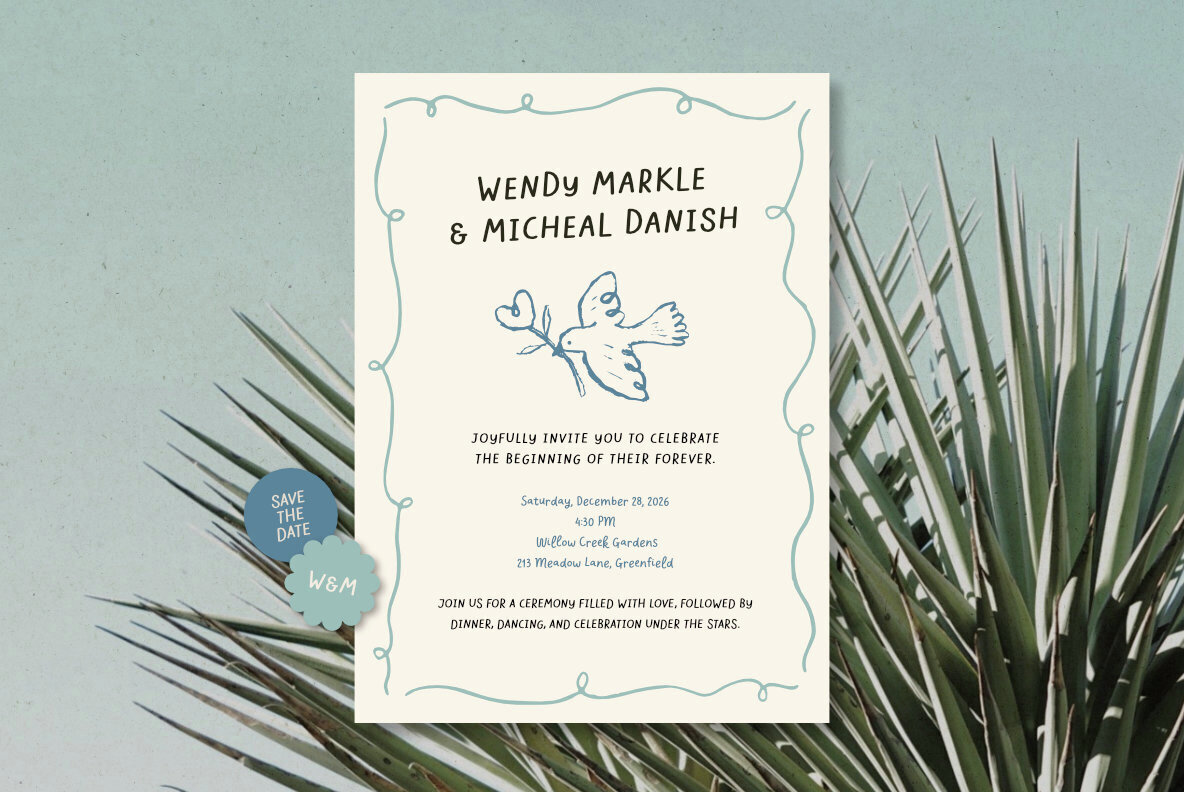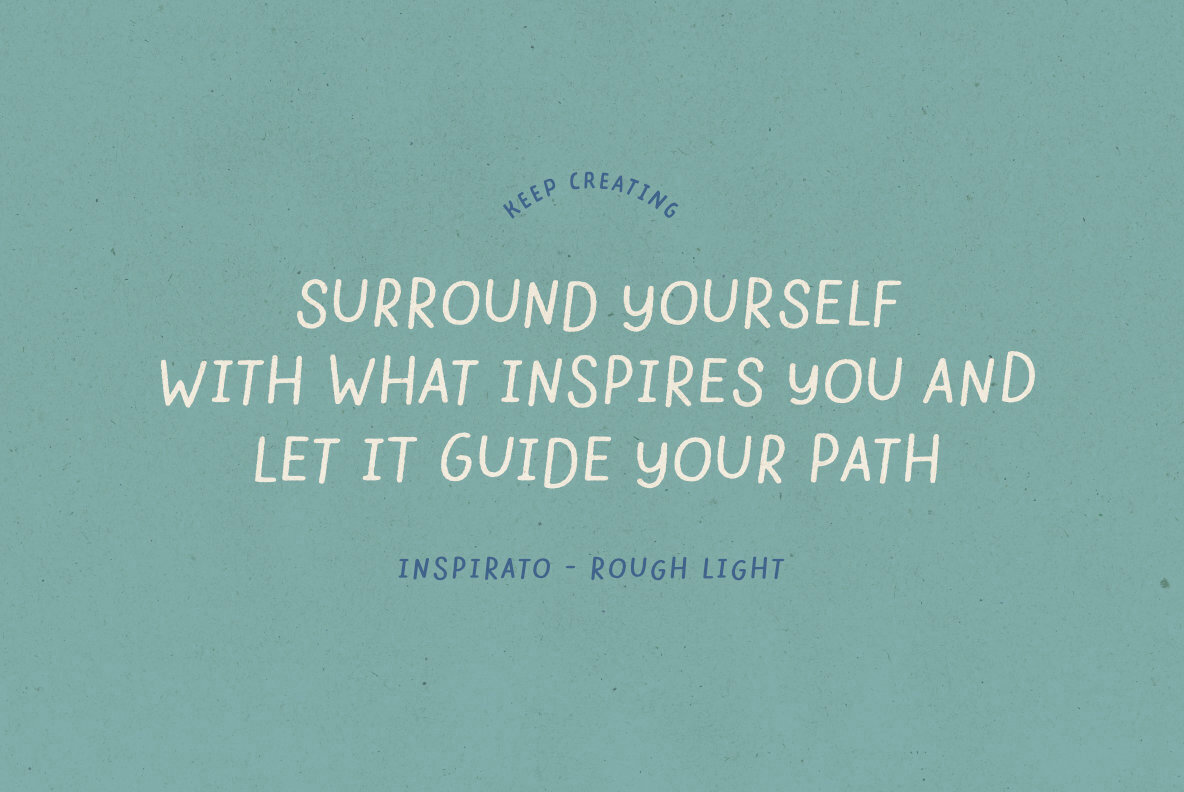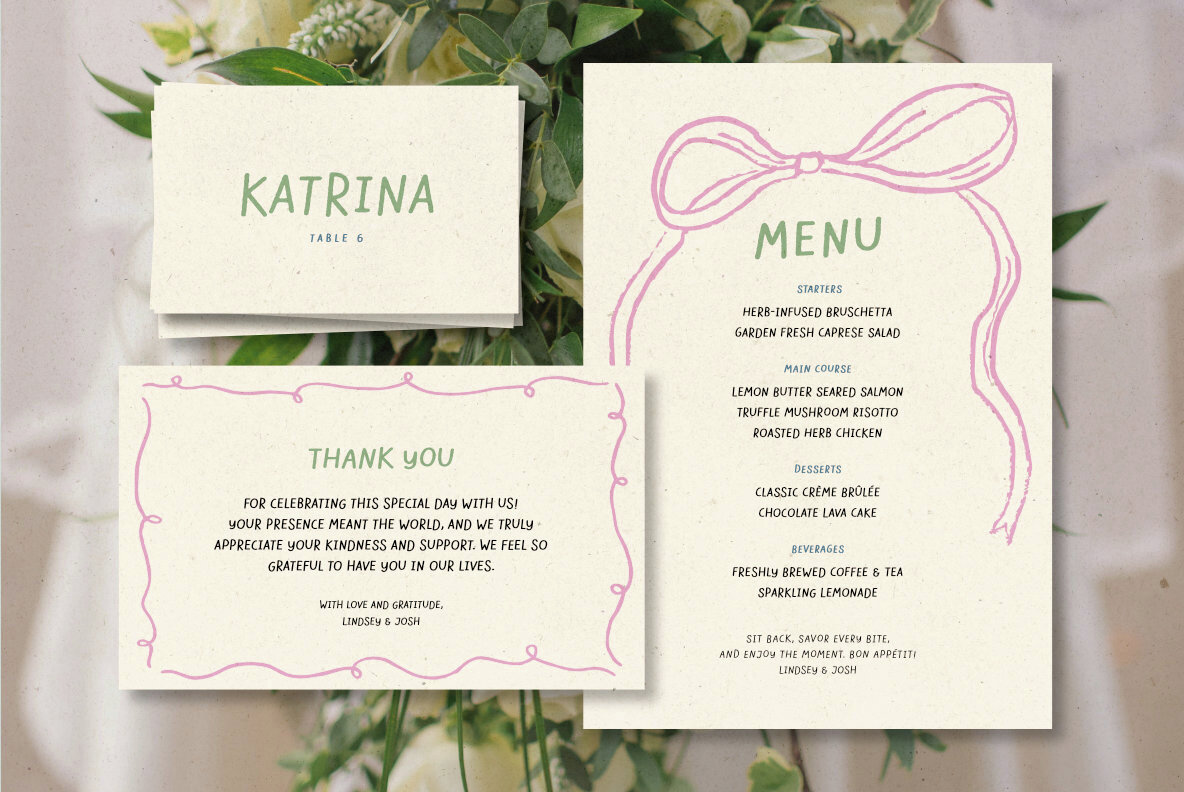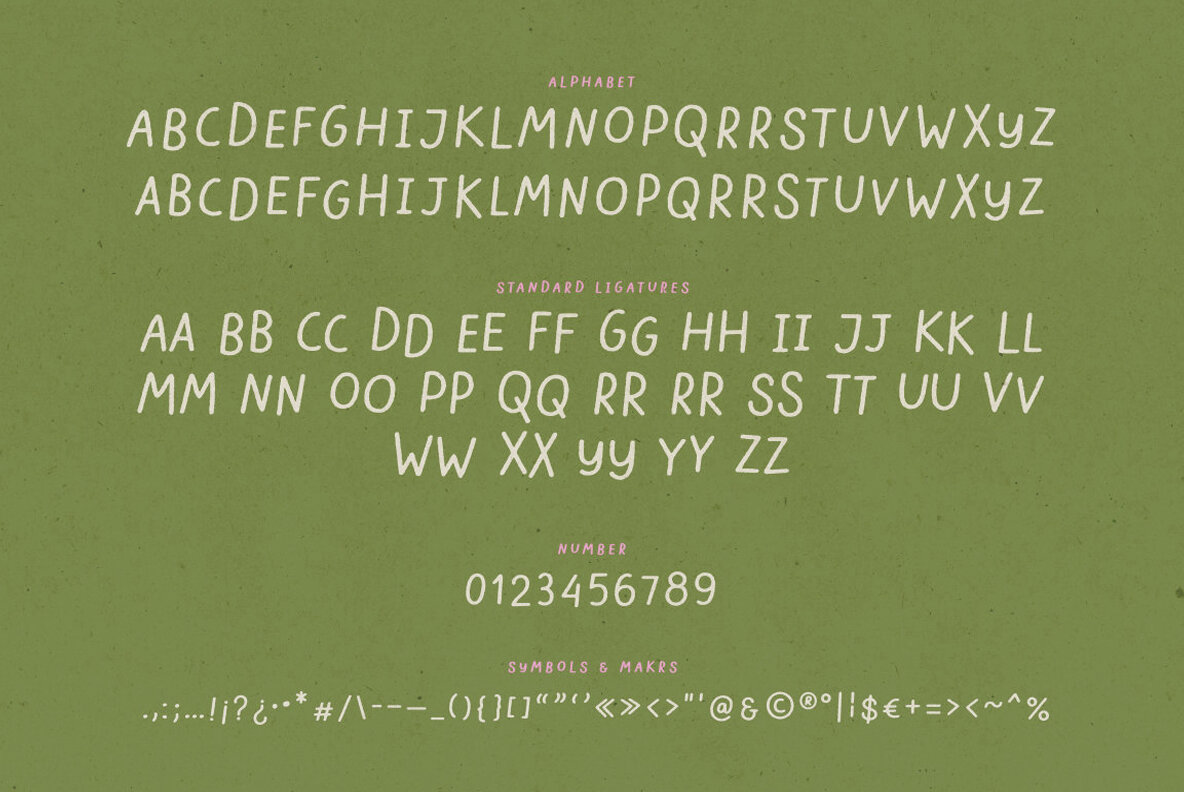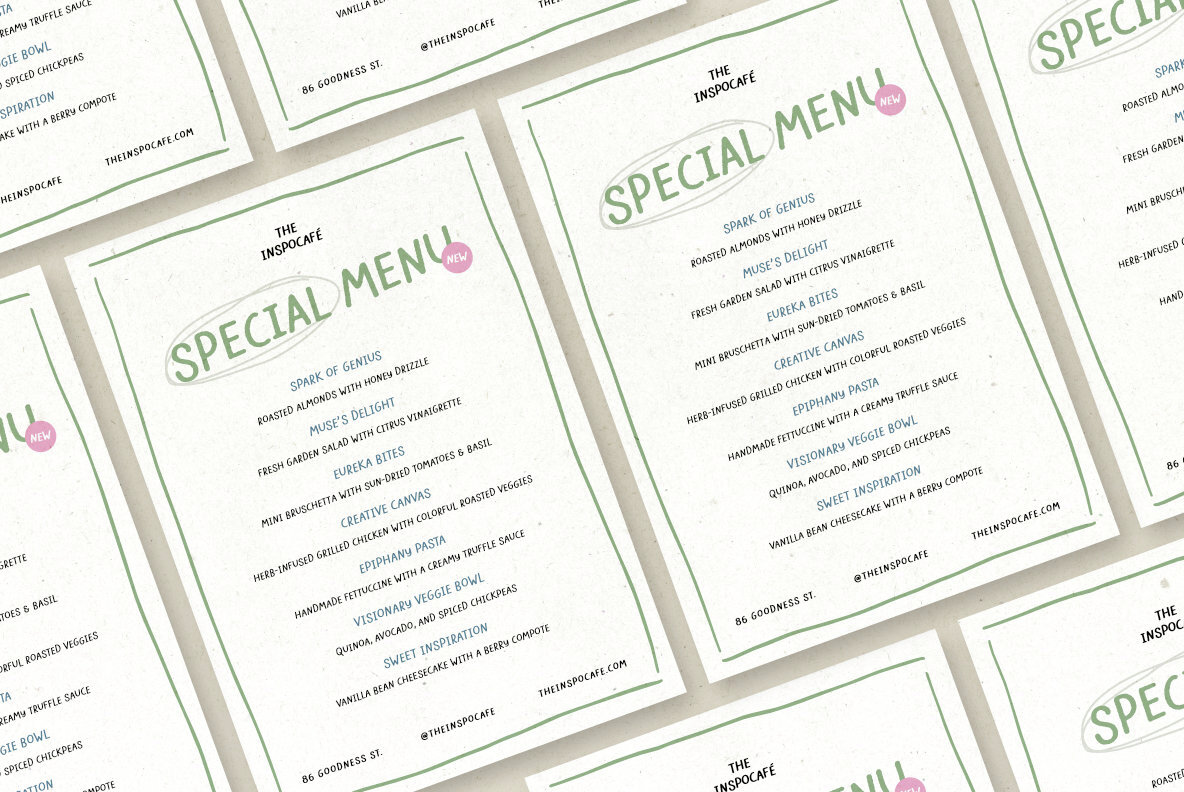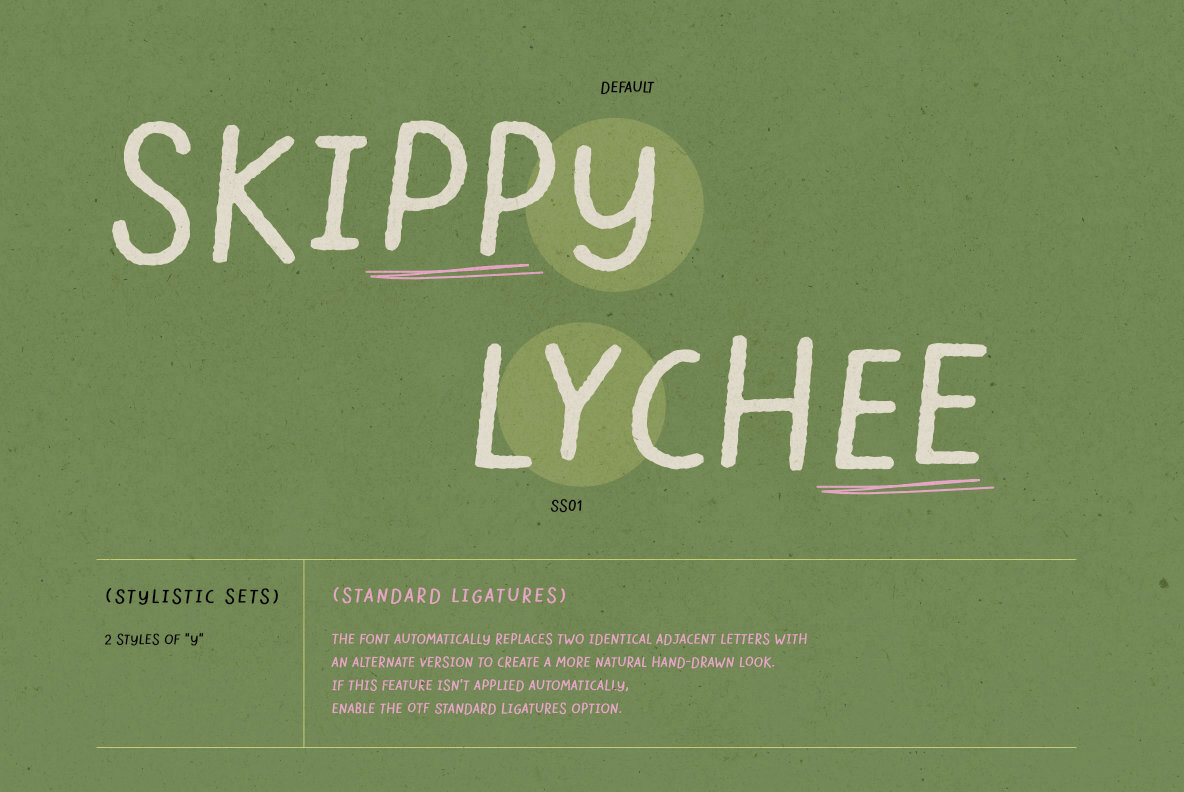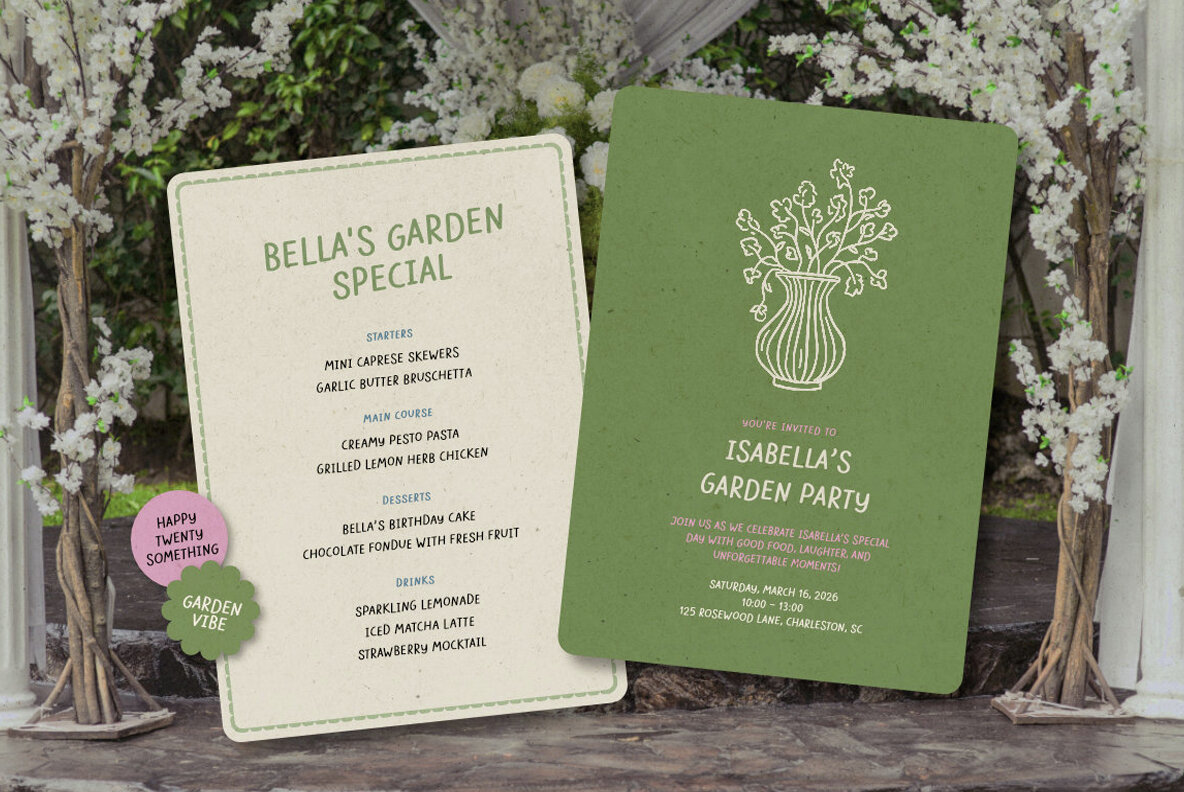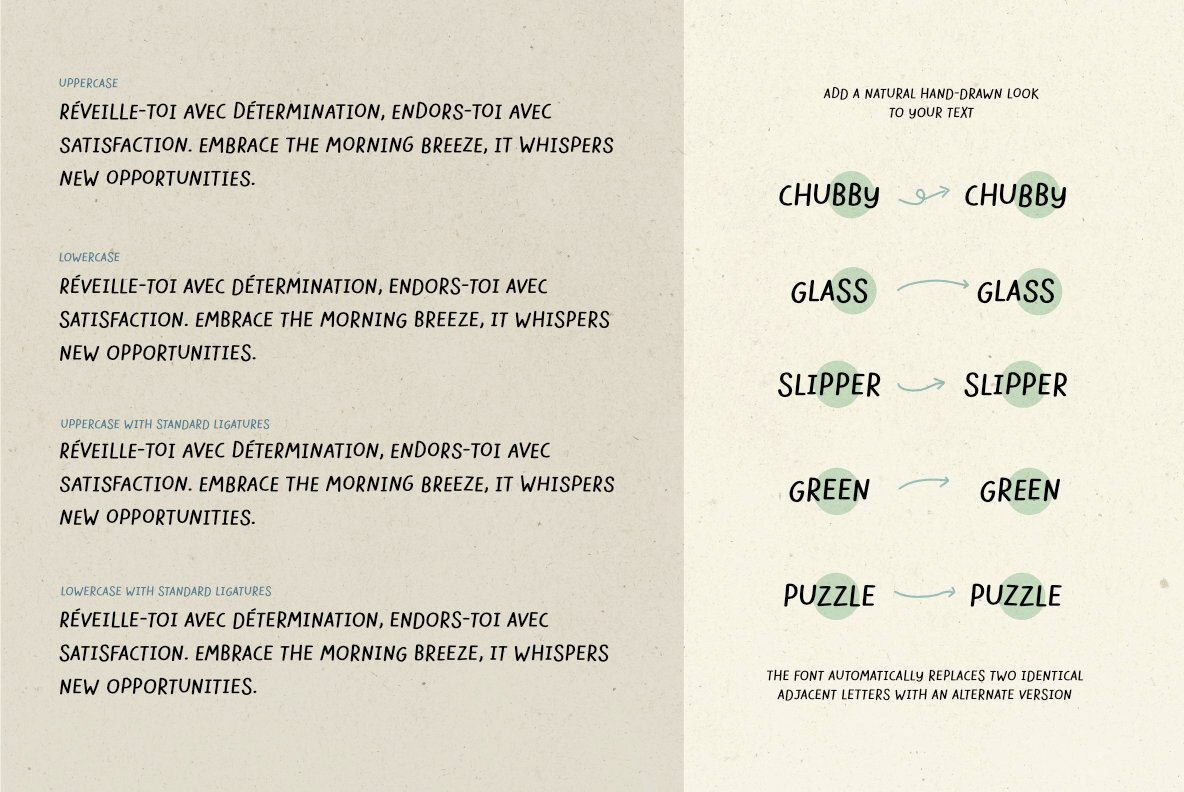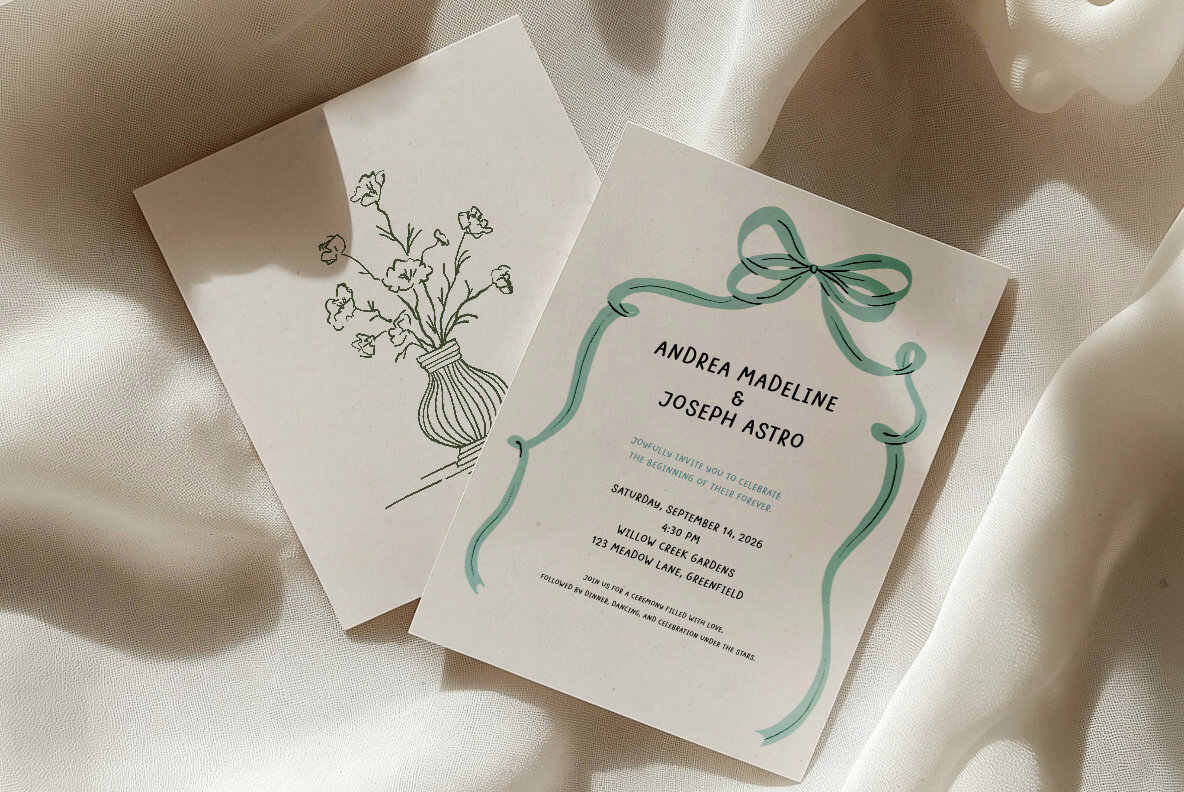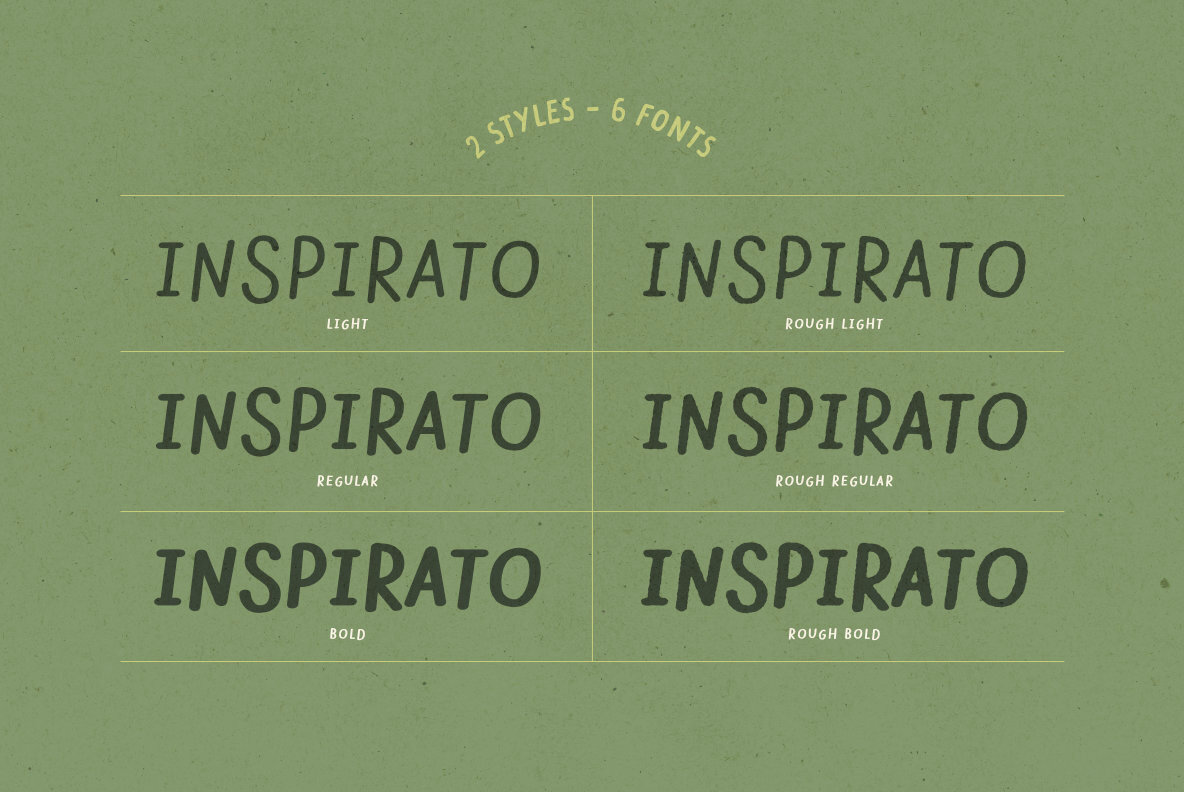
Inspirato Font
INSPIRATO is a hand-lettered, all-caps font family with six fonts—Light, Regular, and Bold, each in normal and rough textures. Featuring OpenType ligatures and multilingual support, it’s perfect for adding a personal touch to any design project. The font automatically replaces two identical adjacent letters with an alternate version to create a more natural handwritten look. If this feature isn't applied automatically, enable the OTF Standard Ligatures option. Font features: